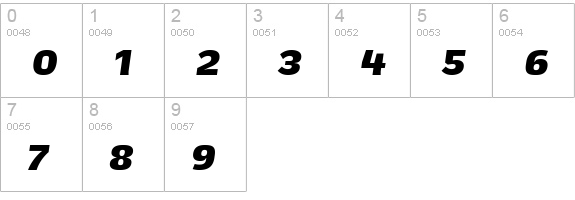
Exert-BoldItalic Font Details
Exert-BoldItalic font is a stunning display typeface that exudes strength and elegance. Its bold and italic design commands attention, making it perfect for headlines, titles, and other prominent text. The sleek curves and sharp edges of Exert-BoldItalic create a modern and sophisticated look that is sure to make your designs stand out. The best part? Exert-BoldItalic is completely free to download at FontsMarket.com. This means you can add this high-quality font to your collection without spending a dime. Whether you're working on a branding project, poster design, or any other creative endeavor, Exert-BoldItalic is a versatile font that will elevate your work to the next level. Don't miss out on this opportunity to enhance your designs with Exert-BoldItalic. Download it for free today at FontsMarket.com and take your typography game to new heights.